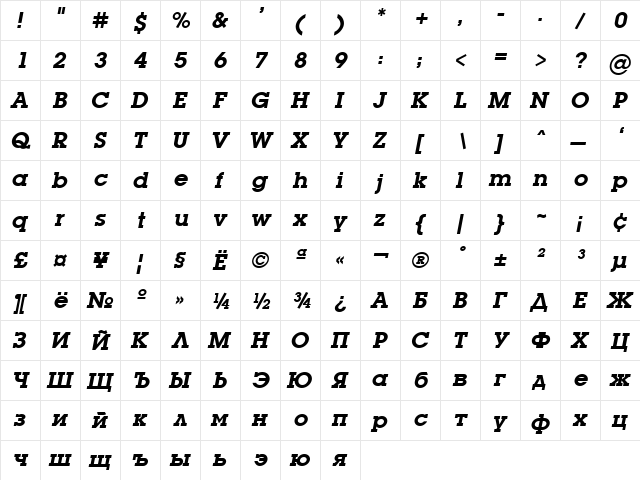
LugaBook SemiBold Oblique Font Preview
LugaBook SemiBold Oblique
Design Context for LugaBook Typeface
LugaBook is a composed and adaptable typeface that performs quietly and consistently across a wide range of design contexts. The dynamic lean of this cut emphasises speed and emphasis in any layout. Its bold stroke weight gives it real presence on the page.